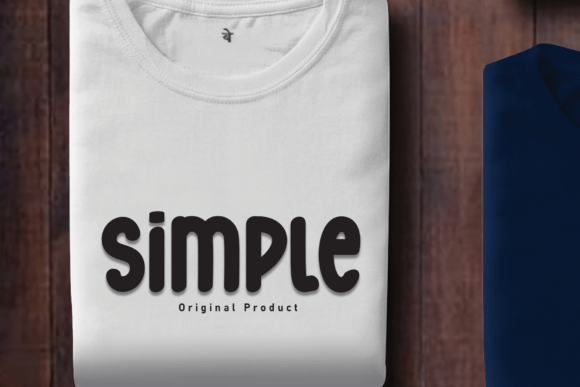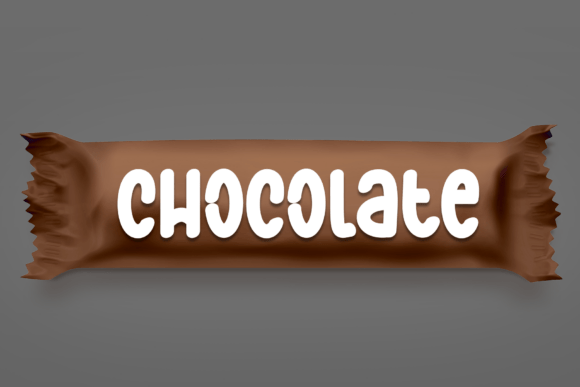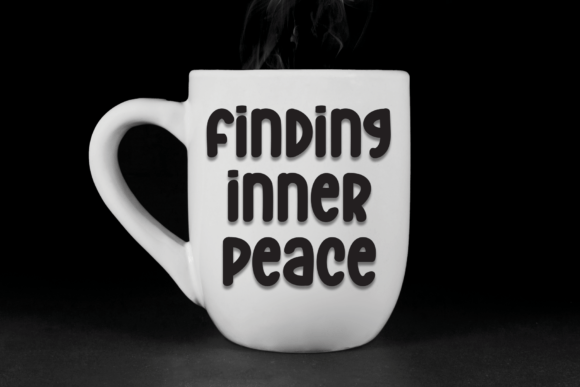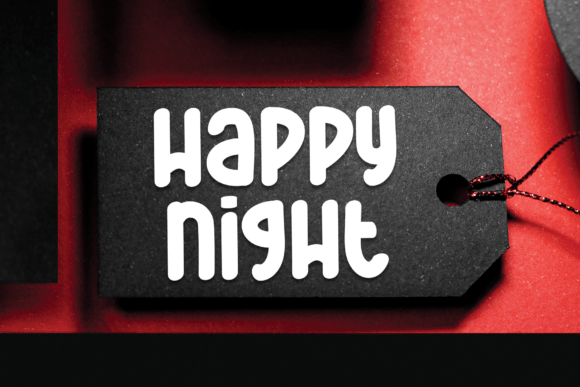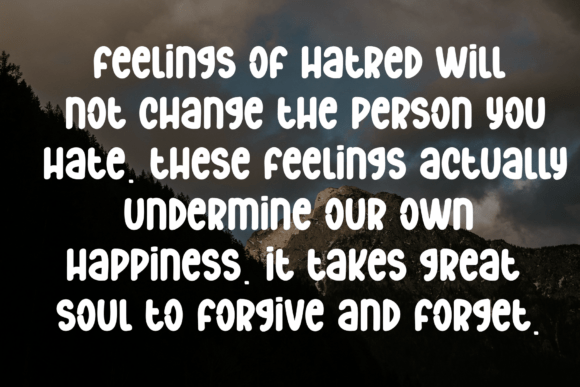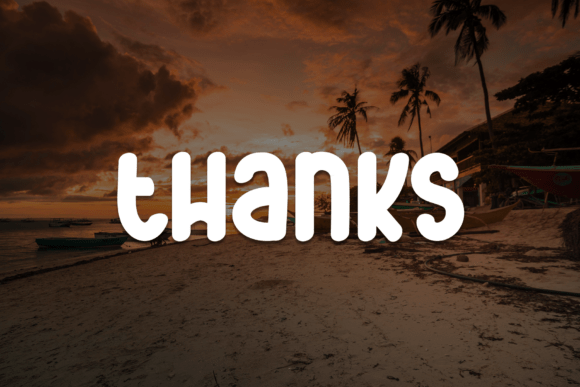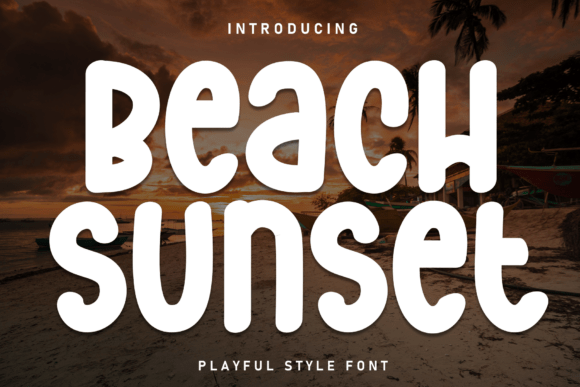
Introducing Beach Sunset Font: The Ultimate Whimsical Charm for Your Designs
Are you tired of using the same old fonts for your designs? Do you want to add a touch of fun and cuteness to your expressions? Look no further than Beach Sunset Font, a delightful handwritten display font that is bursting with charm and whimsy. In this article, we’ll dive into the features and benefits of this amazing font, and explore how it can elevate your designs to the next level.
A Delightful Blend of Sweet and Friendly
Beach Sunset Font is a unique and captivating typeface that combines the sweetness of handwritten script with the friendliness of a playful font. Its whimsical charm is perfect for designers and crafters who want to add a personal touch to their work. Whether you’re creating wedding invitations, heartfelt cards, or social media graphics, this font is sure to make your designs stand out from the crowd.
Bursting with Charm
So, what sets Beach Sunset Font apart from other fonts? For starters, its handwritten style gives it a warm and inviting feel that’s hard to replicate with digital fonts. Each stroke is carefully crafted to add a sprinkle of fun and personality to your designs. The result is a font that’s not only visually appealing but also engaging and emotive.
Perfect for Wedding Invitations and Heartfelt Cards
Beach Sunset Font is particularly well-suited for wedding invitations and heartfelt cards. Its sweet and friendly vibe makes it perfect for conveying love, appreciation, and celebration. Imagine creating beautiful wedding invitations that set the tone for a romantic and unforgettable day. Or, picture sending heartfelt cards to loved ones that speak directly to their hearts. With Beach Sunset Font, you can do just that.
Bring Your Designs to Life
One of the most exciting things about Beach Sunset Font is its ability to transform any artwork into an engaging masterpiece. Whether you’re a seasoned designer or a crafty DIY enthusiast, this font can help you bring your creative vision to life. Its playful typeface is designed to add a touch of whimsy and fun to your designs, making them more captivating and memorable.
More than Just a Typeface
Beach Sunset Font is more than just a typeface – it’s an element of joy and celebration. It’s a way to infuse your designs with a touch of fun and cuteness, making them more relatable and engaging. With this font, you can create designs that speak to people’s emotions and leave a lasting impression.
Tailored for Designers and Crafters
Beach Sunset Font is specifically designed with designers and crafters in mind. Its unique features and benefits make it an ideal choice for anyone looking to add a personal touch to their work. Whether you’re creating digital or print designs, this font is sure to become a go-to in your creative toolkit.
- Handwritten display font with a whimsical charm
- Delightful blend of sweet and friendly
- Bursting with charm and personality
- Perfect for wedding invitations and heartfelt cards
- Transforms any artwork into an engaging masterpiece
- More than just a typeface – it’s an element of joy and celebration
In conclusion, Beach Sunset Font is a must-have for designers and crafters looking to add a personal touch to their work. Its whimsical charm, delightful blend of sweet and friendly, and bursting with charm make it the perfect choice for wedding invitations, heartfelt cards, and social media graphics. With its ability to transform any artwork into an engaging masterpiece, this font is sure to become a go-to in your creative toolkit. So why wait? Get Beach Sunset Font today and start elevating your designs to new heights!